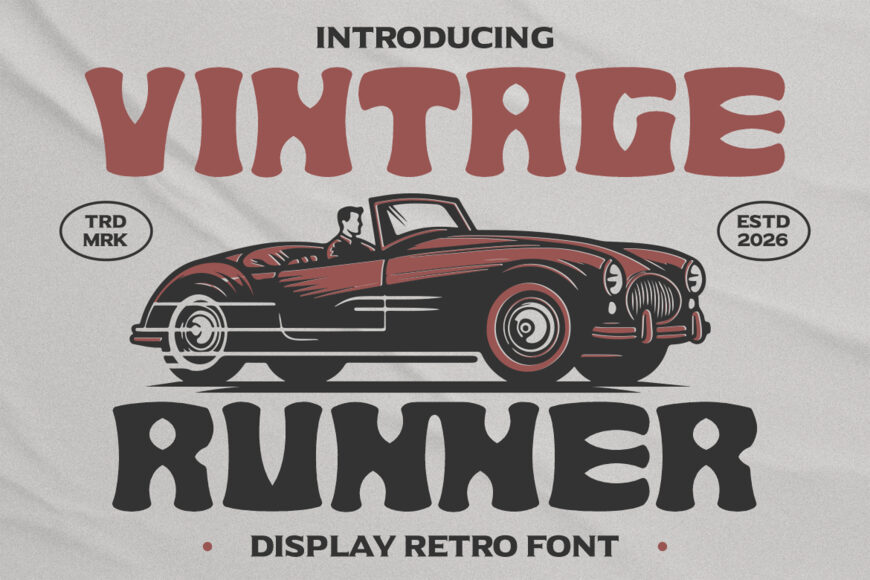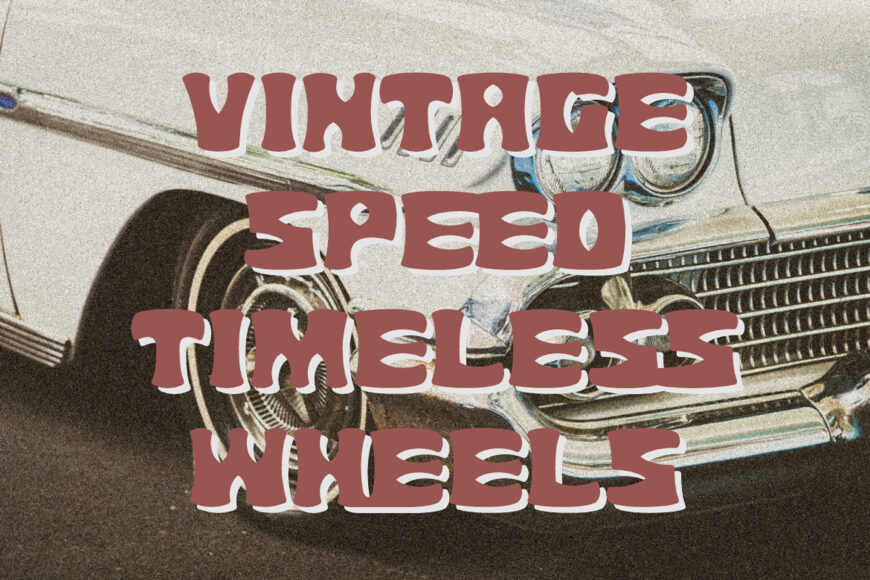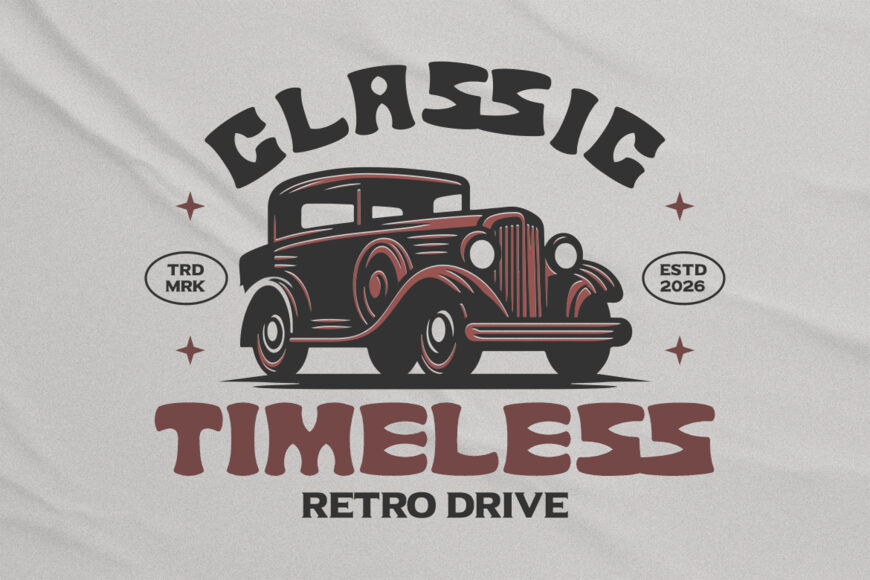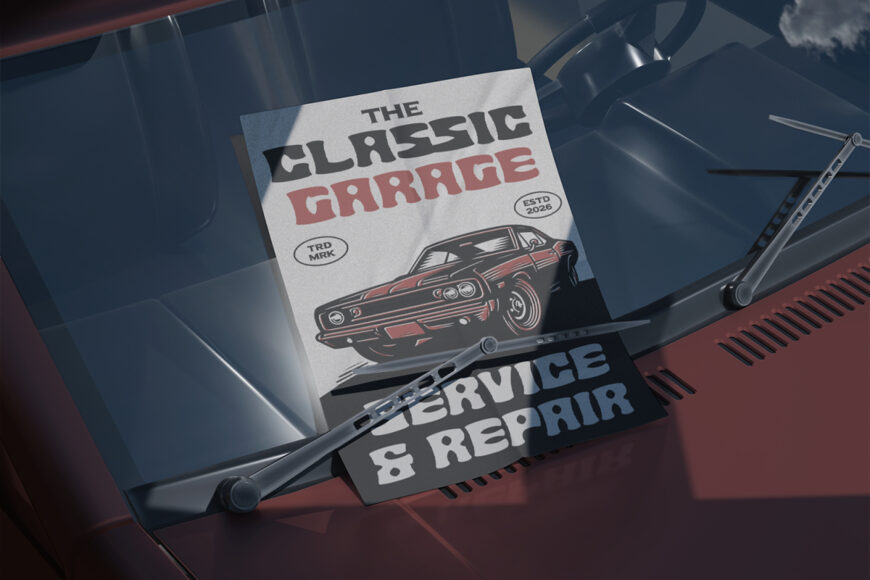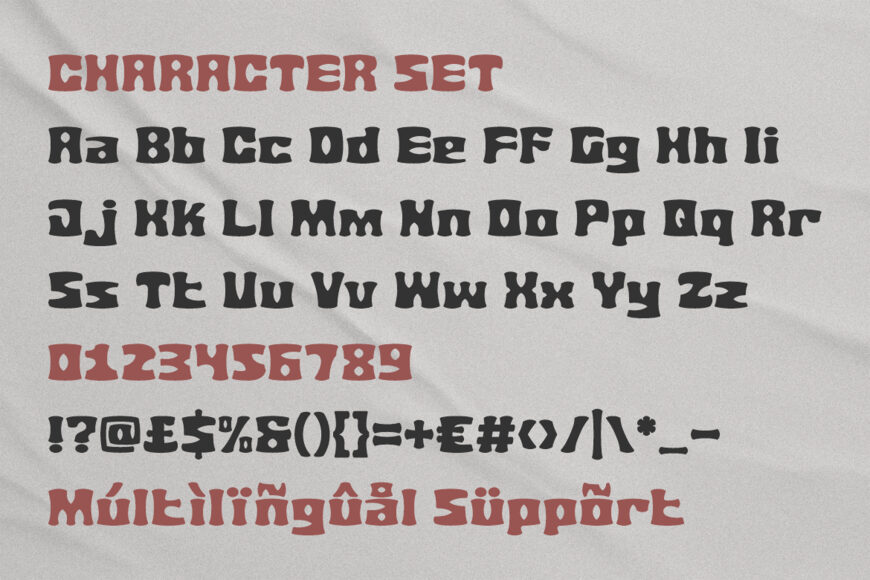
Vintage Runner is a retro sports font featuring thick, rounded letterforms, bold curves, and a strong sense of movement. Its wide, compact shapes create an immediate impact in short words and headlines, while softened corners keep the style readable and energetic.
Inspired by motorsport, classic signage, and Americana, it works well for garage and car club logos, repair shops, detailing brands, and racing events. Use it for posters, stickers, banners, packaging, advertisements, magazine covers, and other attention-grabbing designs. Vintage Runner combines nostalgic speed with a playful, muscular feel.